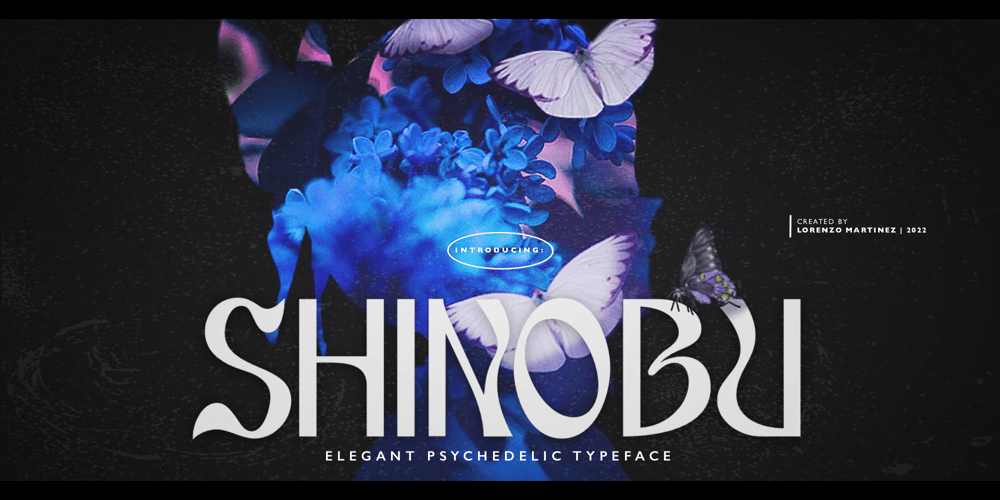
Shinobu Font Family was designed by Lorenzo Gabriel Martinez and published by Lurinzu Studios. Shinobu contains 2 styles and family package options. “Shinobu” is an elegant psychedelic display font that combines characteristics of Art Nouveau and Modren San serif types.The name “Shinobu” comes from the anime character ” Shinobu Kocho” from an anime called “Demon Slayer”. Like “Shinobu’s” characteristics, This exudes elegance and poshness while still having that quirkiness.This display font is intended to be used in big-scale designs such as headlines, posters, flyers, apparel, quotes, greeting cards, product packaging, album covers, movies, and more. *This font includes letters, numbers, alternates, and all essential marks needed.